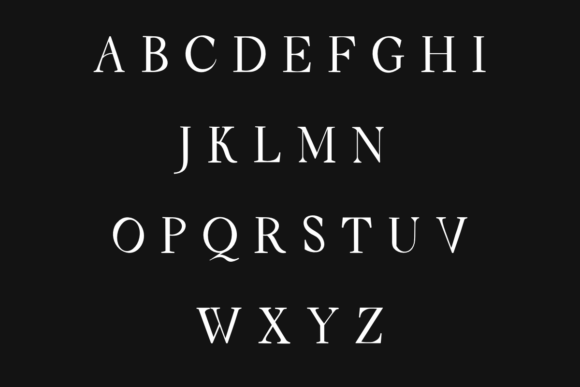
Divine Font
Divine is a mystical decorative font that blends celestial elegance with timeless serif style. Featuring magical moon and star embellishments within each character, it’s perfect for spiritual branding, tarot cards, fantasy book covers, or any design that needs an enchanting, ethereal touch.